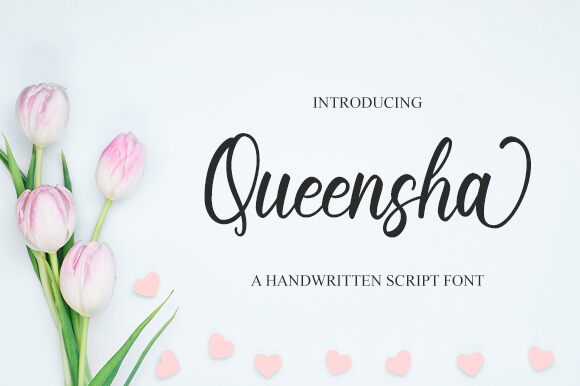
Queensha
Queensha, the exquisite calligraphy font by Graphix Line Studio, is perfect for adding elegance and sophistication to any project. Its fluid strokes and ornate curves are reminiscent of traditional calligraphy styles, making it ideal for wedding invitations, event posters, and high-end branding materials. The semi-bold width of this font typeface adds a modern twist to its classic design. Use Queensha to add a touch of luxury to your next project and make an unforgettable impression on your audience.